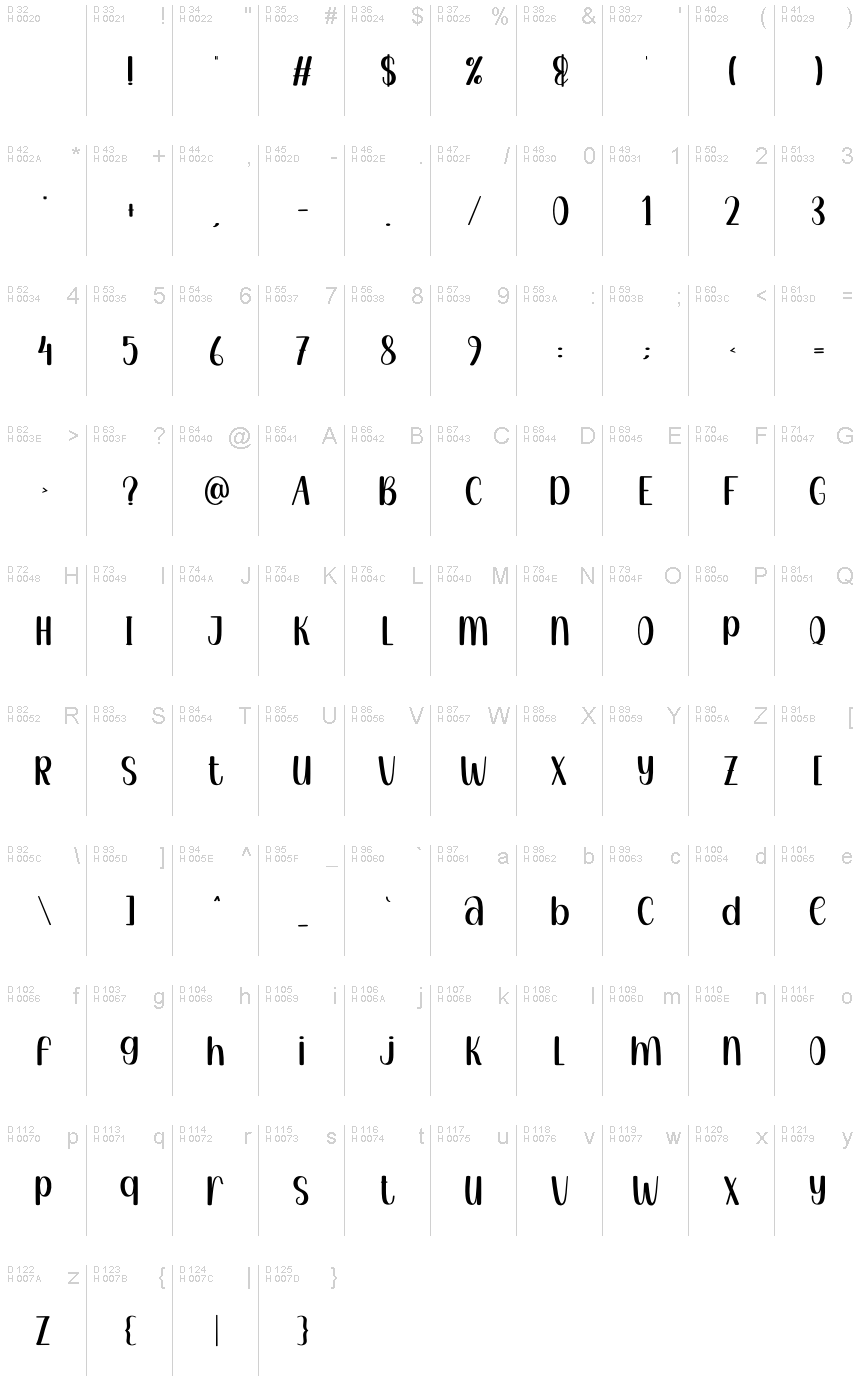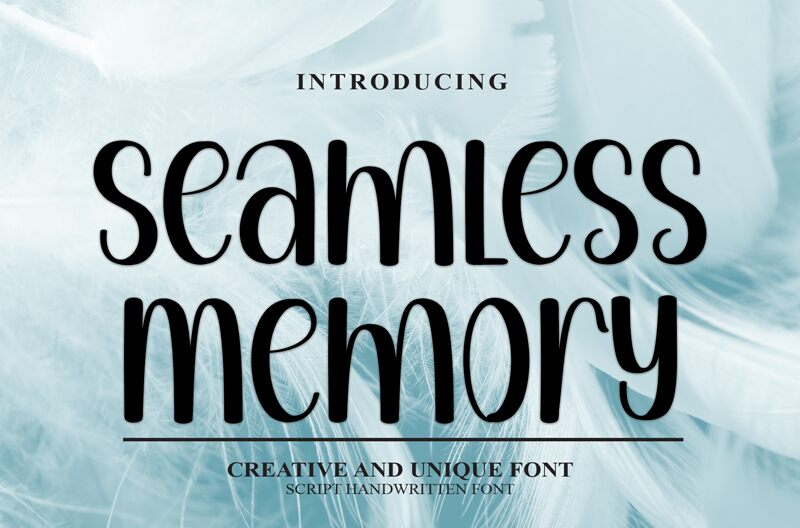
Seamless Memory
Seamless Memory, designed by Andi Moz, is a captivating font that exudes a smooth, brush-like elegance. Its flowing, organic lines and seamless transitions create a sense of effortless grace, making it an ideal choice for branding, editorial layouts, and artful typography. The font's versatility shines in its ability to evoke a range of moods, from the sophisticated and refined to the whimsical and expressive.
With its unique character and timeless appeal, Seamless Memory is a valuable addition to any designer's toolkit, offering a distinctive voice that can elevate a wide variety of creative projects.